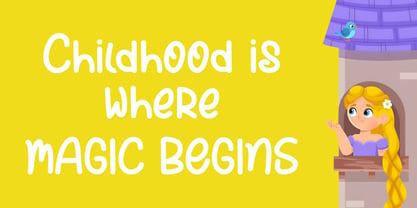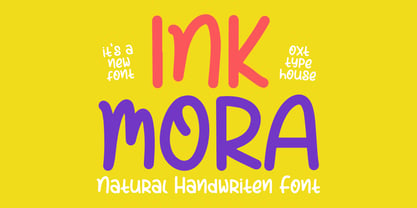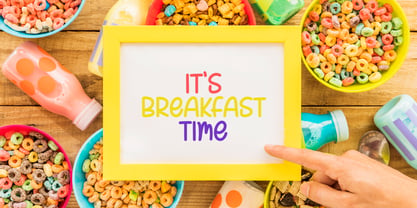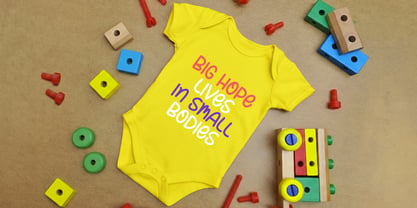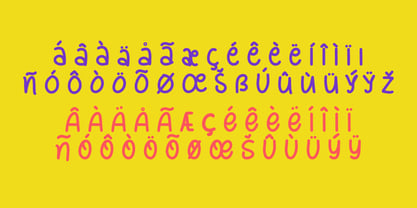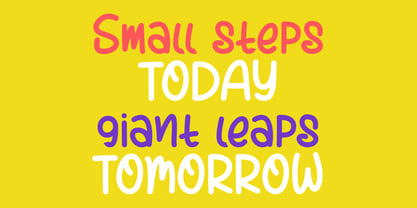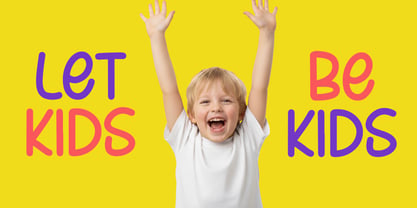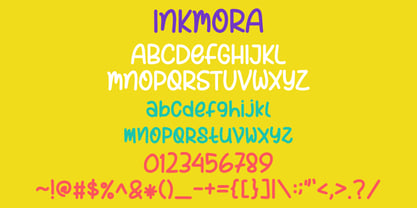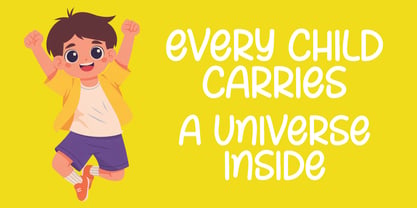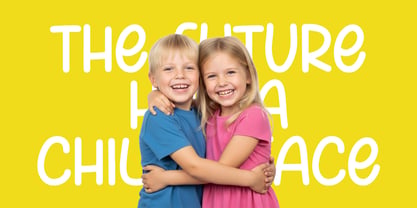
Inkmora
by Oxt Type House
The Inkmora Font Family was designed by Oksta Aziz Rachmaddan and published by Oxt Type House. Inkmora contains 1 styles. More about this family
Inkmora is a natural handwritten font that captures the honest, playful energy of real ink on paper. With its rounded strokes, soft curves, and slightly irregular rhythm, it feels warm, friendly, and effortlessly expressive. Designed to look spontaneous yet readable, Ink Mora brings a human touch to modern design projects. This font shines in branding for cafes, kids products, creative businesses, packaging, social media graphics, posters, quotes, and merchandise. The bold letterforms make headlines stand out, while the organic flow keeps layouts approachable and lively. Its hand-drawn personality works beautifully on bright backgrounds, minimal compositions, and colorful visual identities. Ink Mora is perfect when you want your message to feel personal, cheerful, and authentic — as if written directly by hand, but refined for professional use.
Designers: Oksta Aziz Rachmaddan
Foundry: Oxt Type House